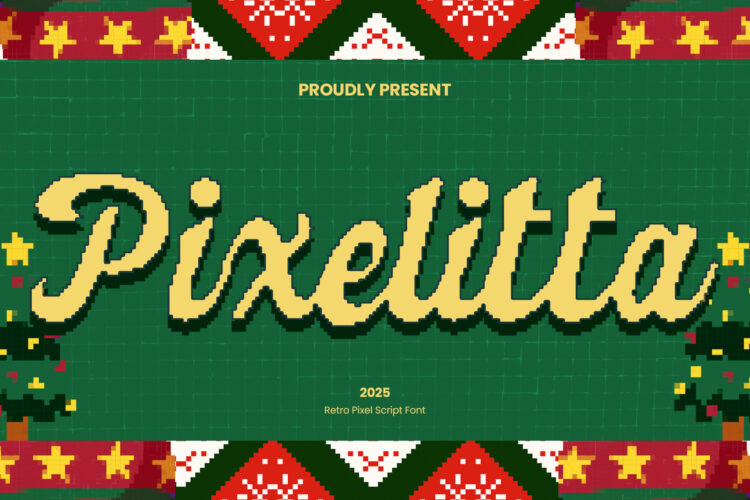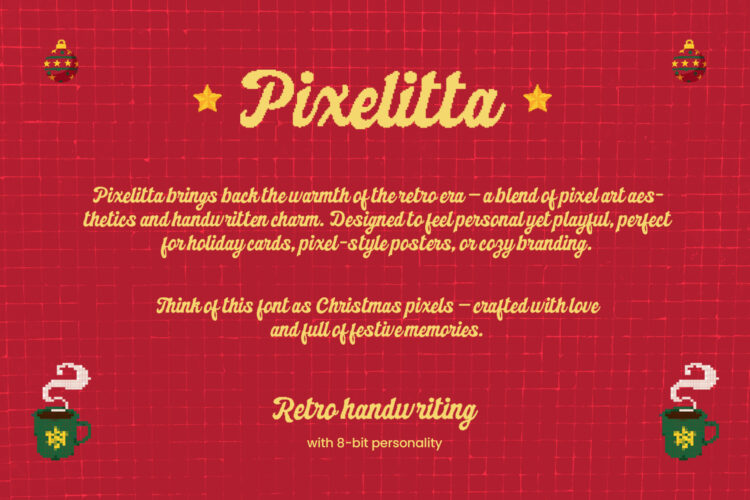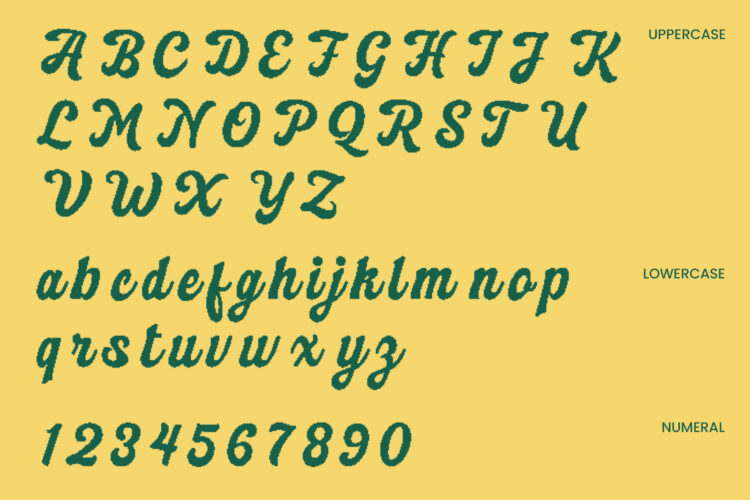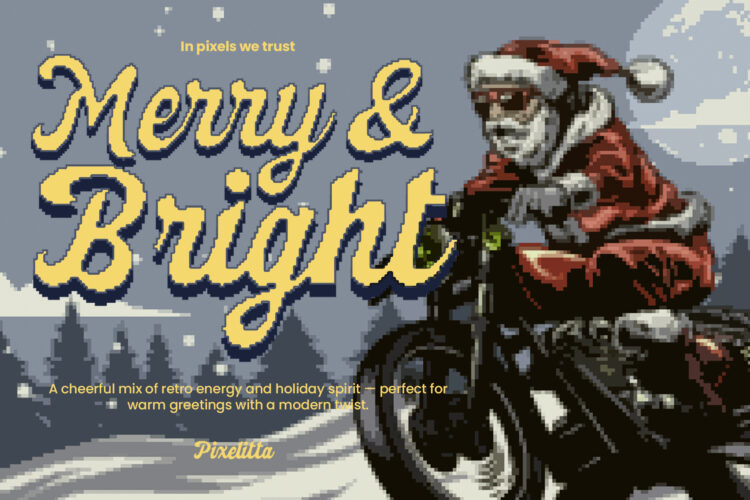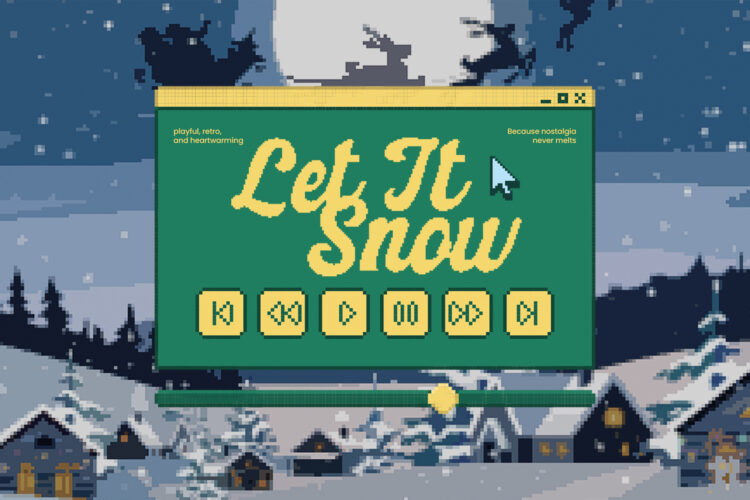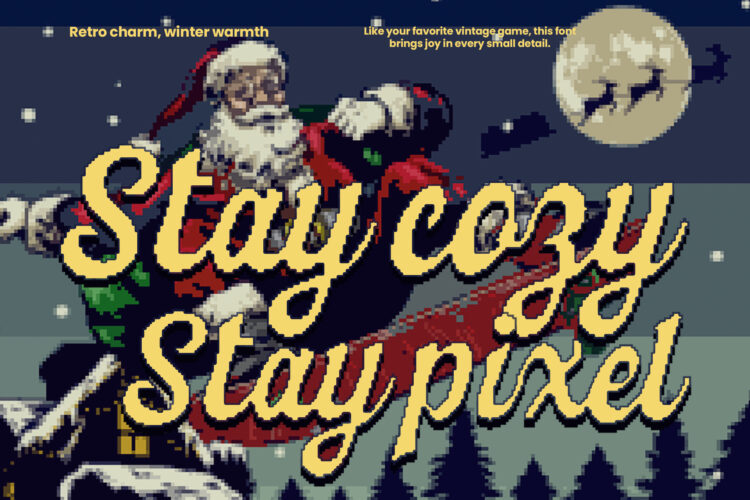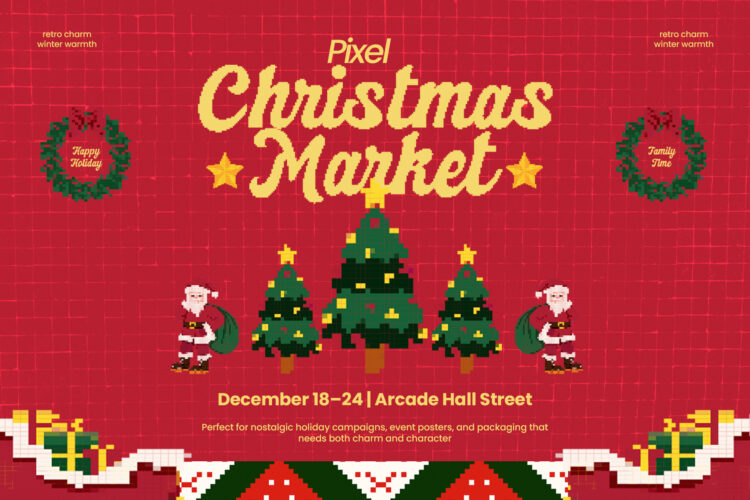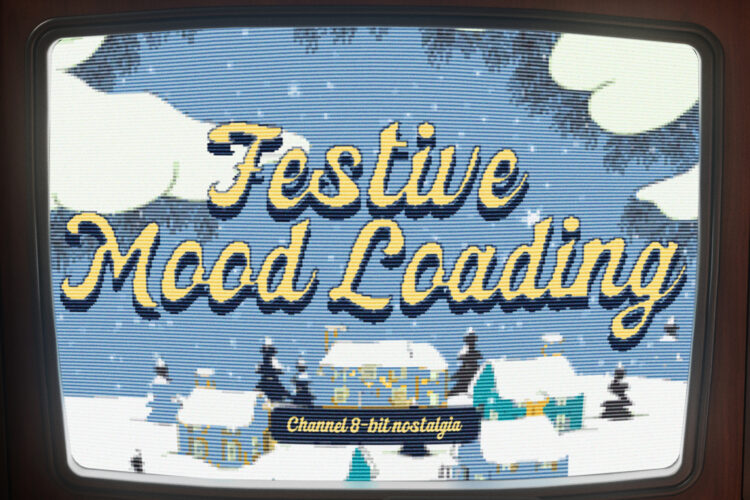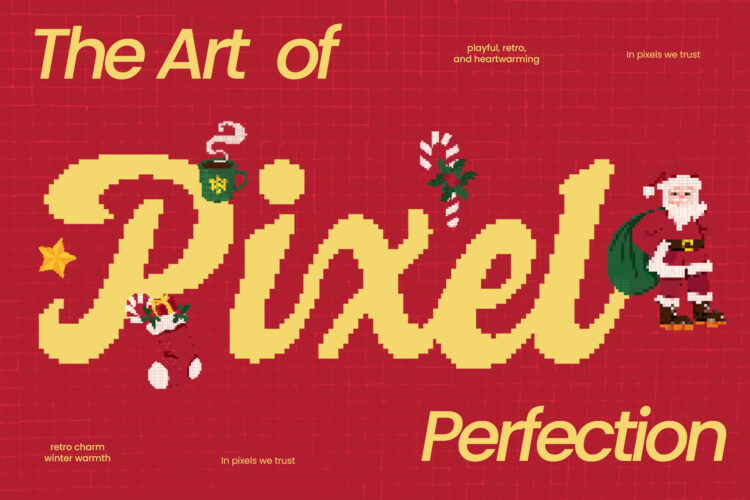
Pixelitta – Retro Pixel Script Font
Pixelitta is a retro pixel script font inspired by holiday charm and 8-bit aesthetics. It blends nostalgic handwritten strokes with pixelated edges, making it perfect for Christmas cards, winter event posters, pixel games, and festive branding. Designed to radiate warmth, joy, and playfulness—ideal for any creative project that craves retro flair with a modern twist.
- Uppercase & lowercase characters
- Numerals
- Pixelated outline style
- Retro script with pixel touch
- Festive, playful look
- Perfect legibility for display
- Holiday greeting cards
- Winter campaign posters
- Cozy pixel-themed branding
- Retro video game titles
- Warm seasonal packaging
- Christmas-themed merch design